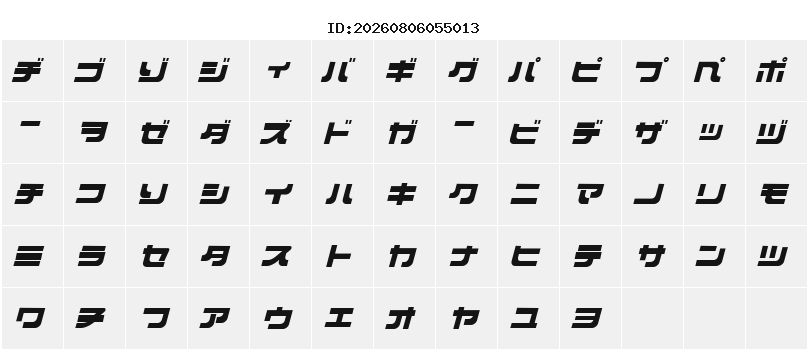
Overloader Preview
About Overloader.ttf
Overloader.ttf is a modern, elegant sans-serif font designed for ultimate readability and visual harmony. Perfect for branding, headlines, web design, and print materials.